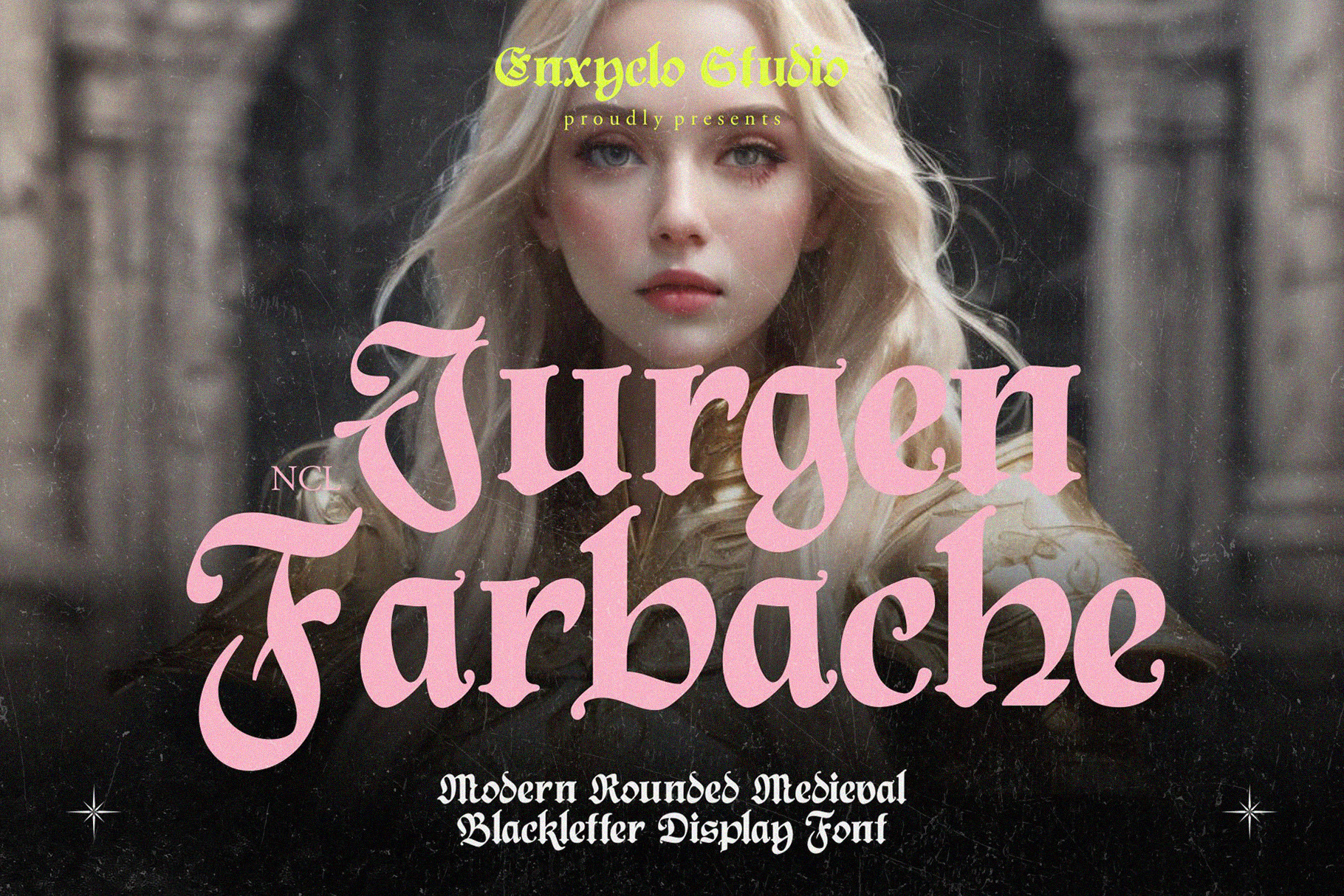
NCL Jurgen Farbache - Medieval Font
NCL Jurgen Farbache is a medieval rounded blackletter font. The letters are inspired from the middle ages with a blackletter style but have rounded corners which are unique and modern. Very suitable for creative projects that have a medieval theme or contemporary designs but have a classic touch. Its modern aesthetics bring a whole new dimension to your designs, making them stand out. Whether you’re working on a website, poster, logo, or any other project, this font adds that extra touch of innovation and sophistication.